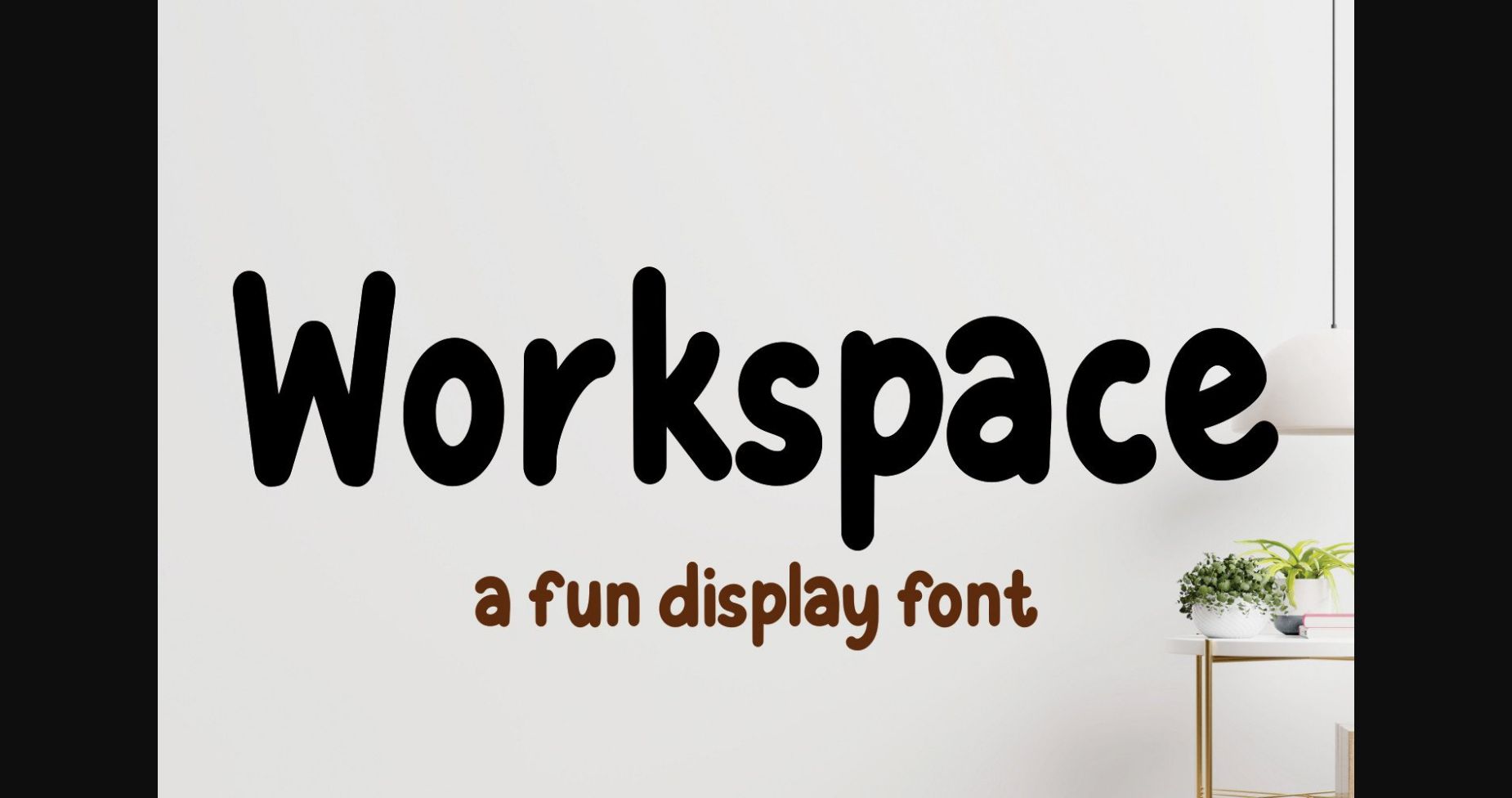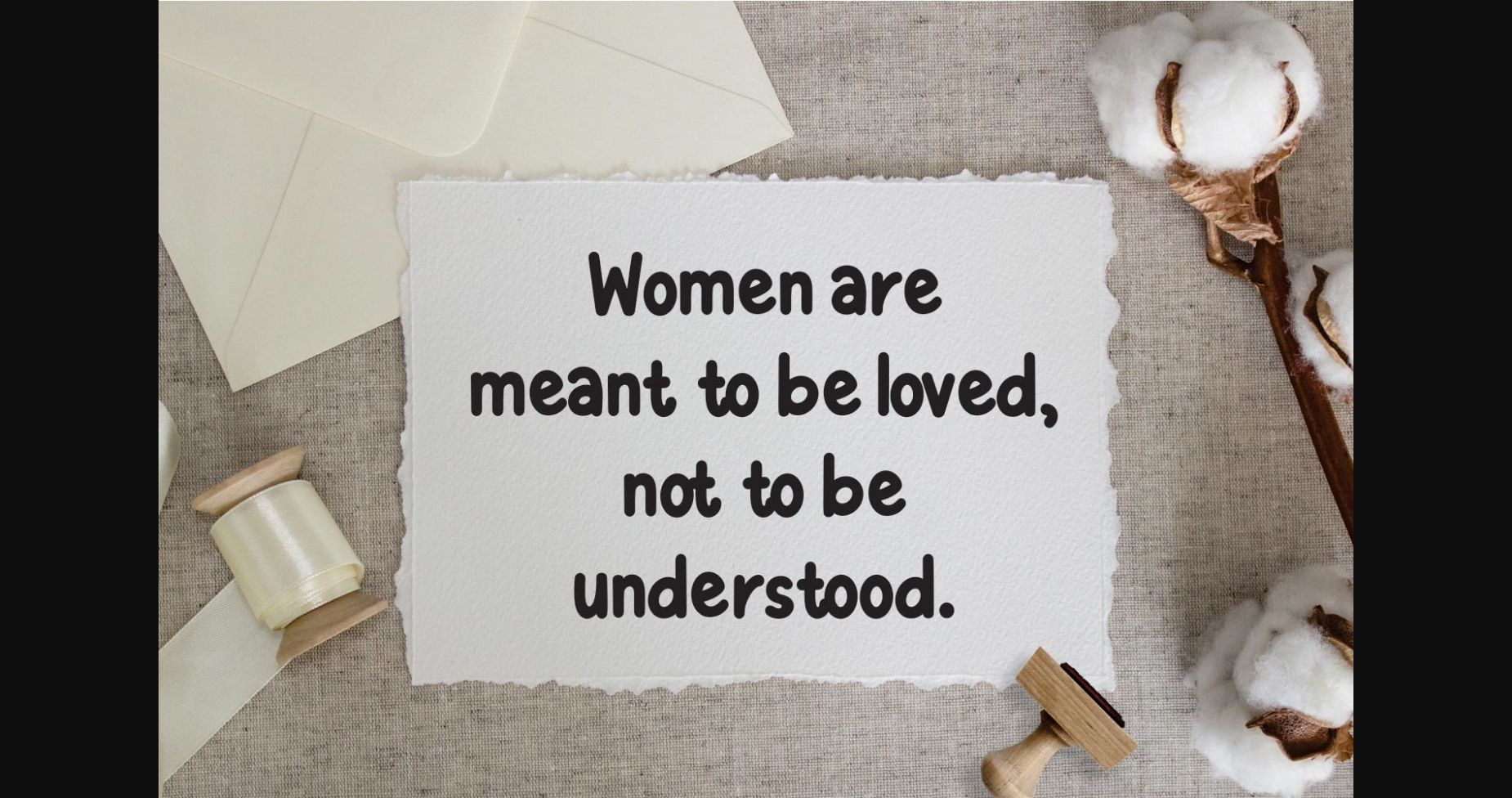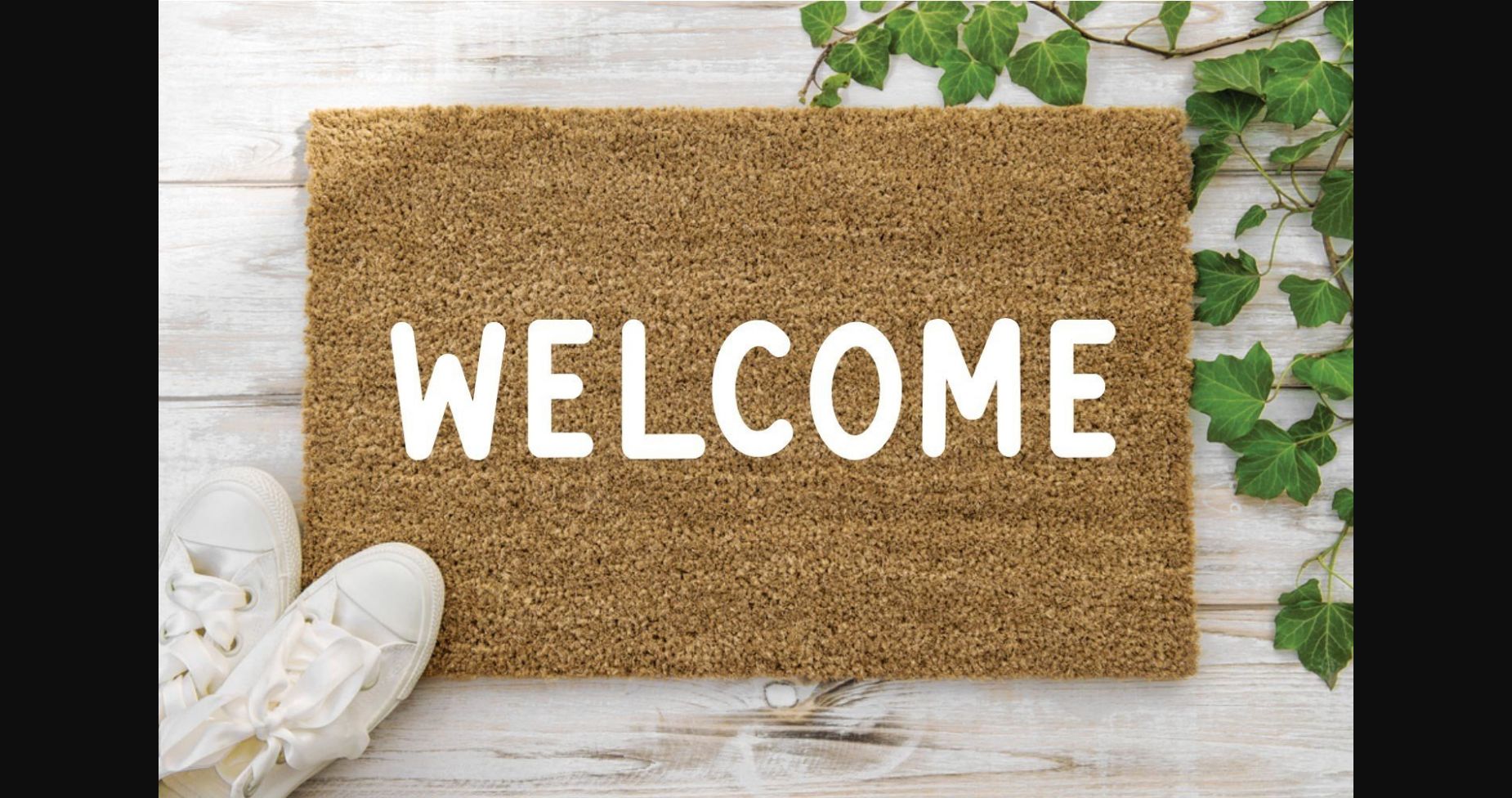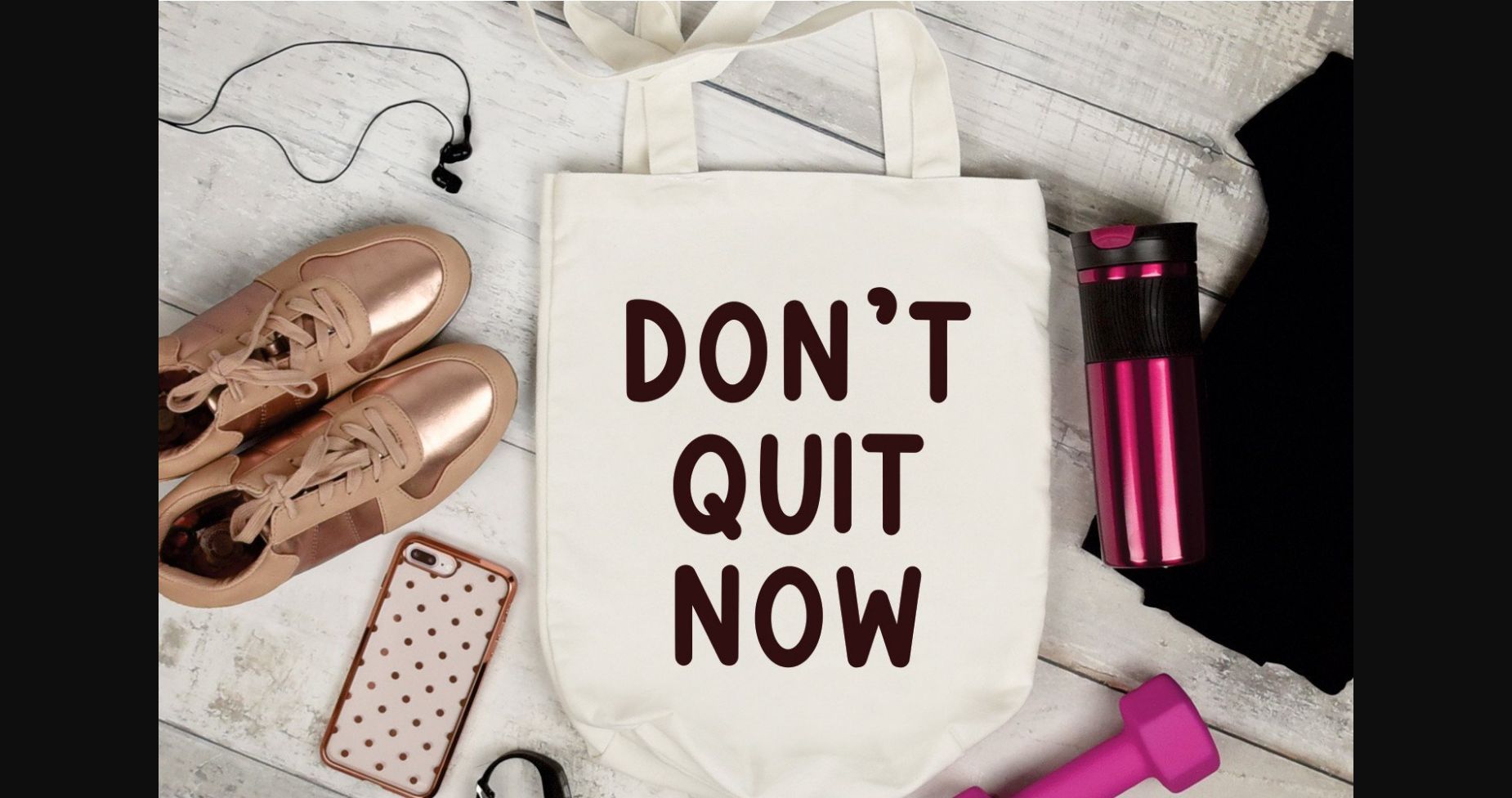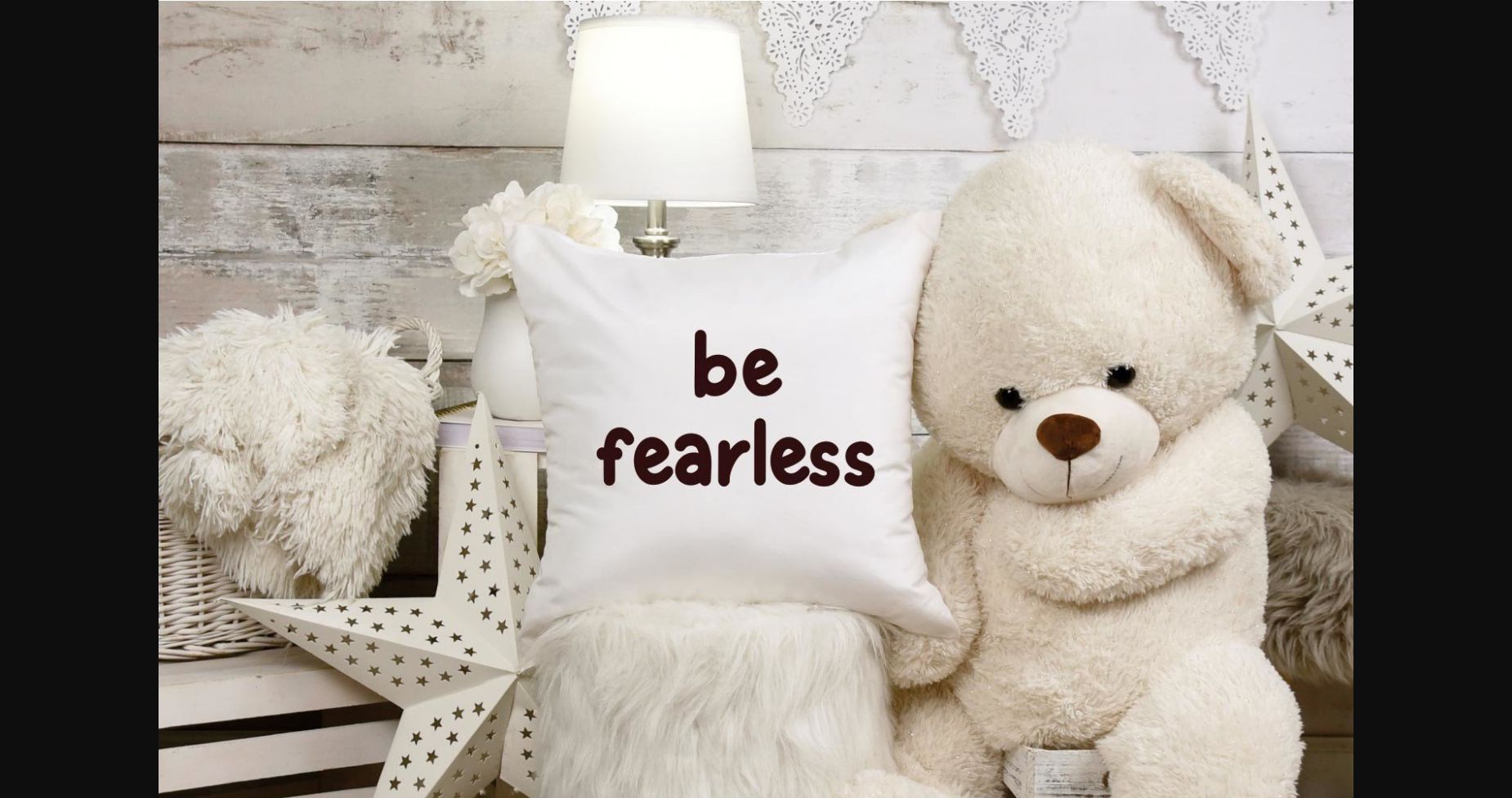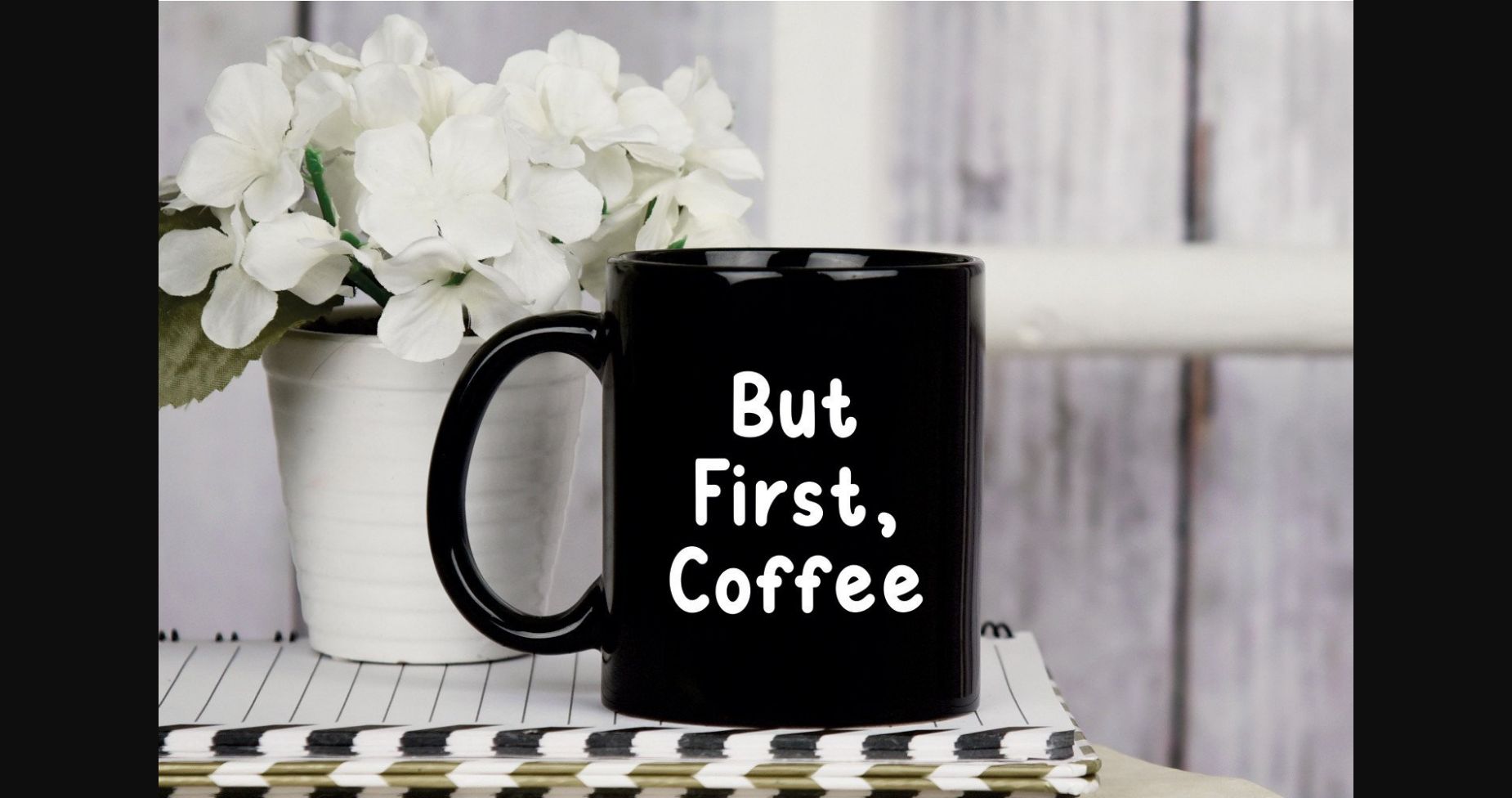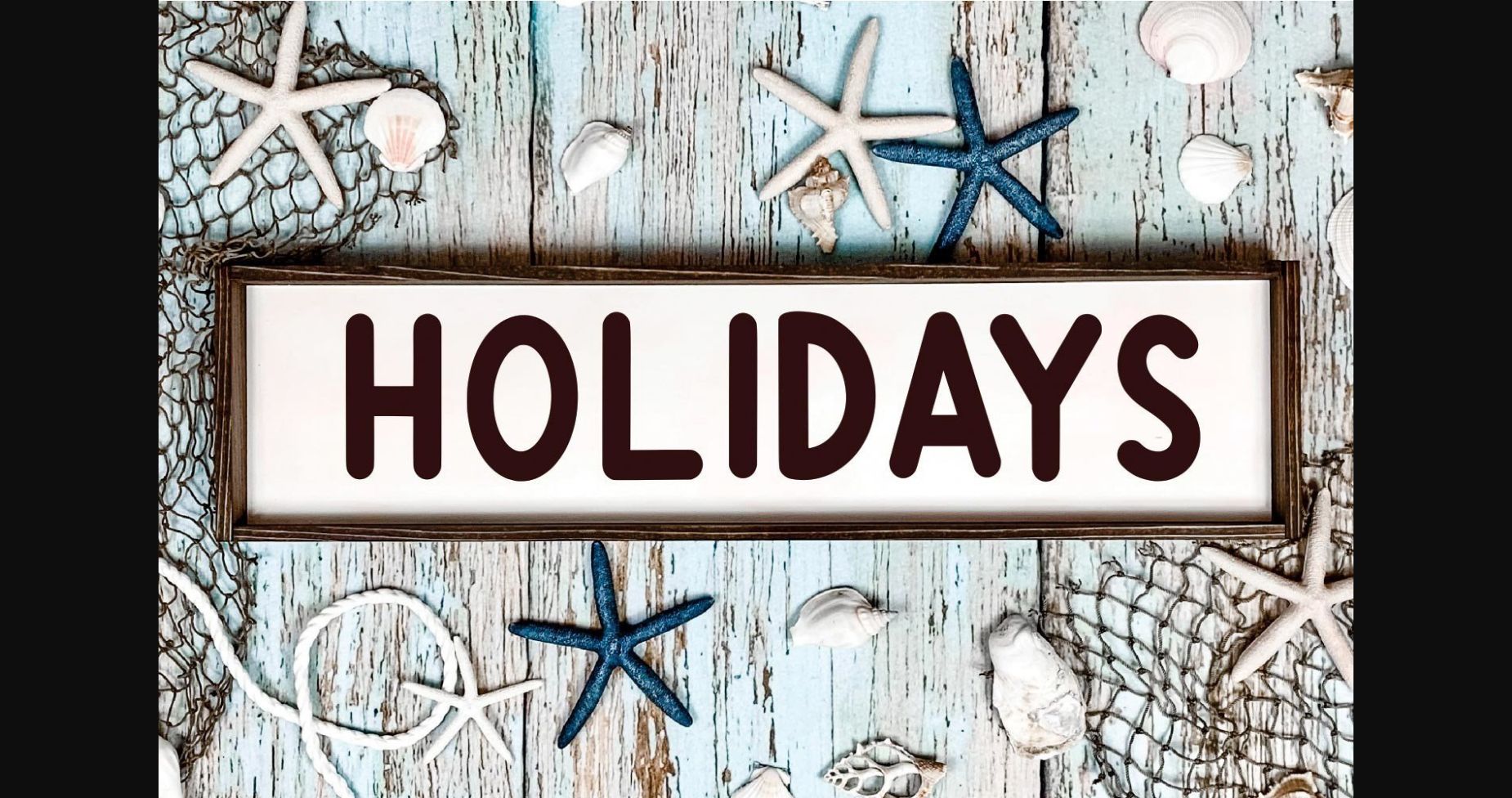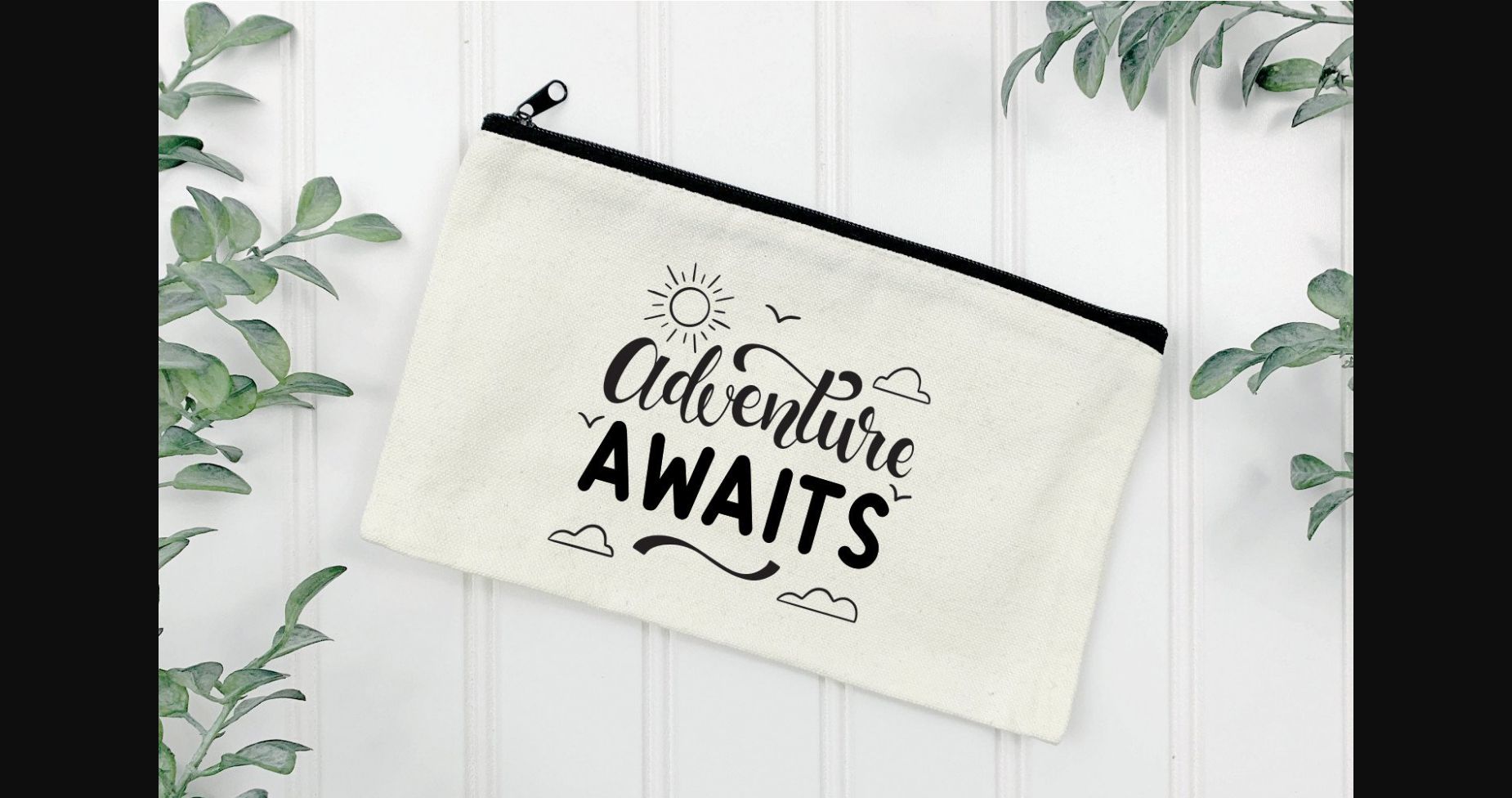
Workspace Font
Workspace is a cute and tall sans serif font.
This font is ideal for crafting, branding, decorating, farmhouse designs, shirts, SVG designs, branding, blogs, logos, invitations, and more!
Fall in love with its incredibly versatile style, and use it to create spectacular designs. Use this font for any crafting project that requires a personalized look!